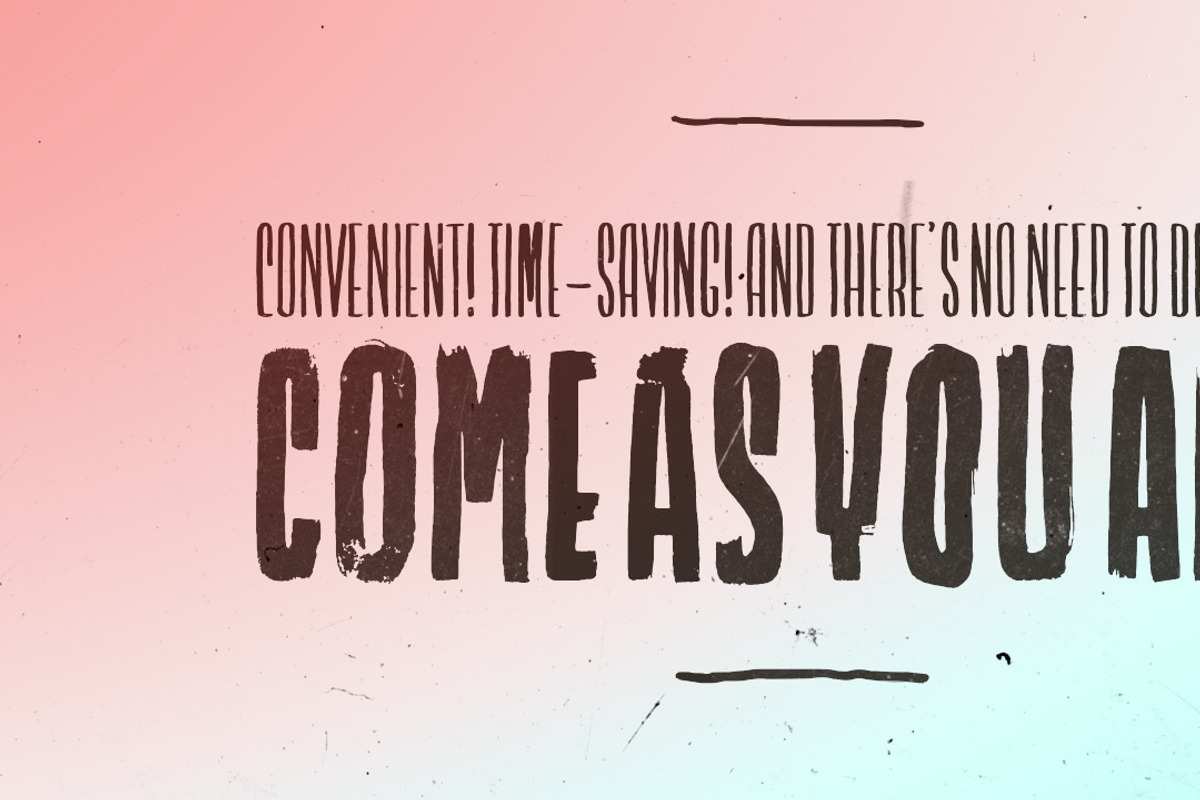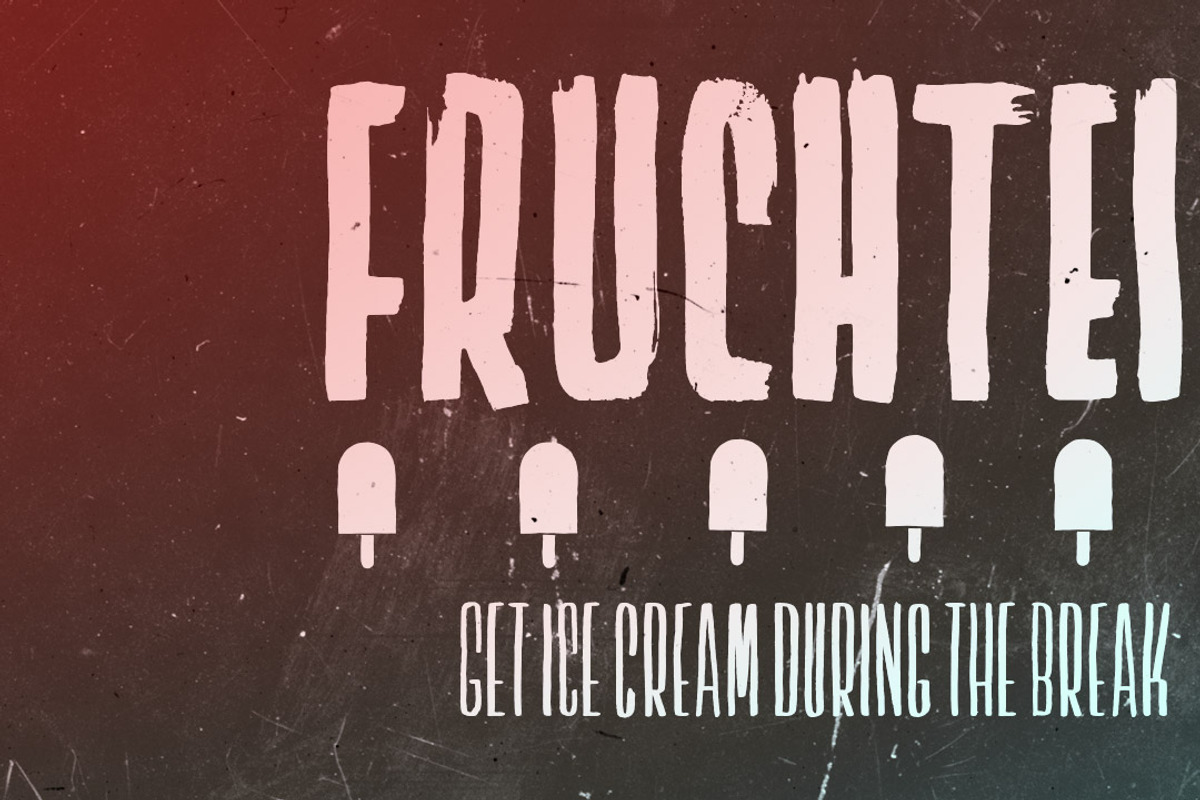
Lichtspielhaus Handmade
Lichtspielhaus Handmade is an ultra condensed handwritten typeface based on Lichtspielhaus. Influenced by the hand-painted signs on cinema facades of the early cinema days, Lichtspielhaus Handmade comes with 4 weights.
There are 3 different versions of each character as contextual alternates, added automatically while you’re writing.